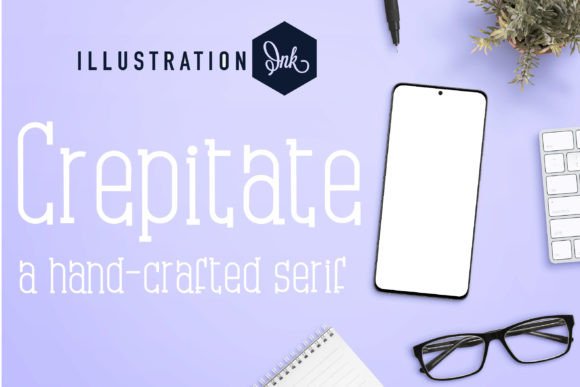
Dive into a realm of elegance and distinction with Crepitate, the font that transforms mundane texts into captivating works of art. This hand-crafted serif font, born from the creative heart of Illustration Ink, captures the essence of sophistication with its striking slab serifs. A visual masterpiece that commands attention, Crepitate is the perfect choice for those seeking to elevate their designs.
Be it letterheads, titles, or stationery, Crepitate's unwavering charm will leave a lasting impression. Its distinct character adds a touch of luxury and allure to any project, making it the ideal choice for those yearning for excellence. With Crepitate as your creative companion, you can craft designs that exude elegance and timeless beauty.
Immerse yourself in the world of Crepitate and unlock a treasure trove of creative possibilities. Let your imagination soar as you explore the endless applications of this versatile font. From eye-catching logos that demand attention to captivating social media posts that captivate audiences, Crepitate is your gateway to design brilliance.
With Crepitate, you hold the power to transform ordinary words into extraordinary expressions. Elevate your designs to new heights and embrace the allure of distinction. Experience the transformative power of Crepitate today and unlock a world of creative opportunities that will leave an indelible mark.